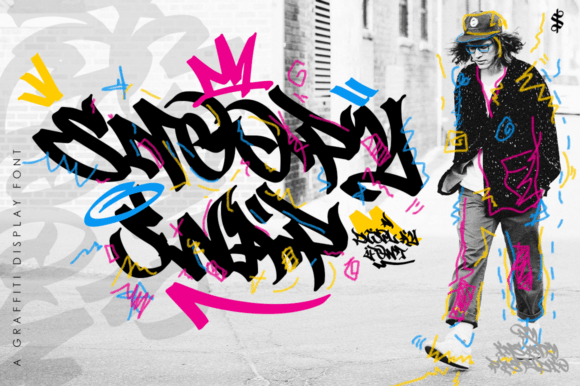
Snoopy Swap: A Web Designer’s Take on Urban Display Typography
I was staring at a blank Figma canvas at 2 AM, trying to breathe some life into a client’s rebrand for a streetwear boutique. The brief asked for "bold," "authentic," and "urban," but every standard sans-serif felt too corporate, and every script font looked too soft. That’s when I stumbled upon Snoopy Swap. It wasn’t just another decorative typeface; it was a visual statement that immediately shifted the entire mood of the layout.
If you are a web designer or digital product creator looking to inject personality into your layouts without sacrificing structural integrity, Snoopy Swap deserves a spot in your toolkit. As a graffiti-inspired blackletter display font, it captures the raw energy of hip-hop culture while maintaining a level of polish that works surprisingly well in modern digital environments. Here is how I tested it in a real-world project and what I learned about using this creative font effectively.
The First Impression: Hero Section Impact
The first place I dropped Snoopy Swap was the hero section of a landing page. The goal was to create an immediate visual hook. When you use a display font like this, you have seconds to capture attention before the user scrolls past. The heavy, stylized strokes of Snoopy Swap acted as a perfect anchor for the headline. It didn’t compete with the background image; instead, it framed it.
However, the transition from screen to reality requires careful consideration. In my initial test, the text was slightly too large for mobile viewports, causing horizontal scrolling issues on smaller devices. This is a common pitfall when working with bold, wide-display fonts. I had to adjust the tracking (letter-spacing) and reduce the font size significantly for screens under 768px. Once optimized, the readability improved dramatically, allowing the unique character shapes to shine without overwhelming the user’s eyes.
This experience highlighted a crucial aspect of modern typography: a font might look stunning in a desktop mockup, but its true value lies in its responsive behavior. Snoopy Swap has enough weight to stand out, but its intricate details can get lost if not scaled appropriately. For best results, use it for short, punchy headlines rather than long paragraphs.
Building Visual Hierarchy and Scanning Behavior
In web design, we often talk about the Z-pattern or F-pattern of reading. Users scan pages quickly, looking for cues on where to click and what to read next. Using a distinctive typeface like Snoopy Swap helps establish a clear hierarchy. By placing it only on key elements—such as section headers, call-to-action buttons, or promotional banners—you guide the user’s eye naturally through the content.
I used Snoopy Swap for the main title of a course sales page, while keeping the body copy in a clean, neutral sans serif font. The contrast between the edgy, artistic display font and the highly legible body text created a balanced composition. The display font drew attention and conveyed excitement, while the supporting typography ensured that the detailed information remained easy to digest. This pairing strategy is essential for maintaining professionalism while still expressing a strong brand identity.
- Hero Titles: Ideal for capturing immediate interest.
- Section Headings: Breaks up content blocks visually.
- Short Phrases: Perfect for slogans or taglines.
- Decorative Accents: Adds flair to otherwise plain layouts.
Readability and Accessibility Considerations
While Snoopy Swap is undeniably stylish, it is not a substitute for body copy. Its complex forms and high contrast make it difficult to read in long passages. As a digital creator, your primary responsibility is accessibility. Ensuring that your website is usable for everyone means choosing the right tool for the right job.
When testing Snoopy Swap against different backgrounds, I found that it performs best on solid, high-contrast colors. On image overlays, especially those with busy textures, the thin lines of the blackletter style can disappear. To combat this, I added a subtle drop shadow or a semi-transparent backing box behind the text. This simple tweak enhanced legibility without detracting from the font’s aesthetic appeal.
For dark mode designs, Snoopy Swap shines. The negative space within the letters pops against dark backgrounds, creating a sleek, premium feel. This makes it an excellent choice for nightlife event pages, music artist portfolios, or luxury streetwear brands that want to convey exclusivity and edge.
Font Pairing Strategies for Digital Brands
One of the most effective ways to integrate Snoopy Swap into a broader brand identity is through thoughtful font pairing. Because it is such a dominant visual element, it needs a calm counterpart to balance it out. A geometric sans serif font works beautifully here, providing a modern, clean foundation that lets the display font take center stage.
As designers, our job is to solve problems visually. Sometimes, the solution is a minimalist grid. Other times, it is a bold, graffiti-inspired letterform that demands to be seen. Snoopy Swap offers that latter option with a level of quality and versatility that makes it a standout choice for today’s digital landscape. Whether you are redesigning a blog, launching a new product line, or refreshing a personal brand, giving this display font a try could be the missing piece in your design puzzle.